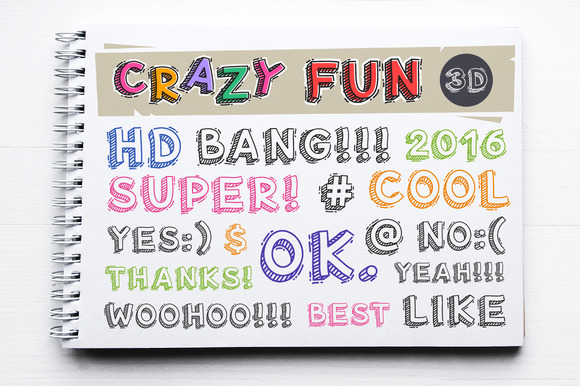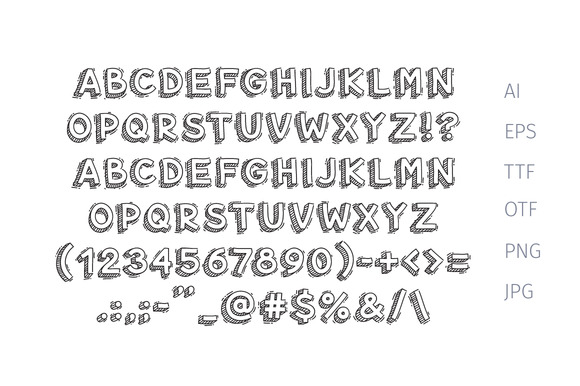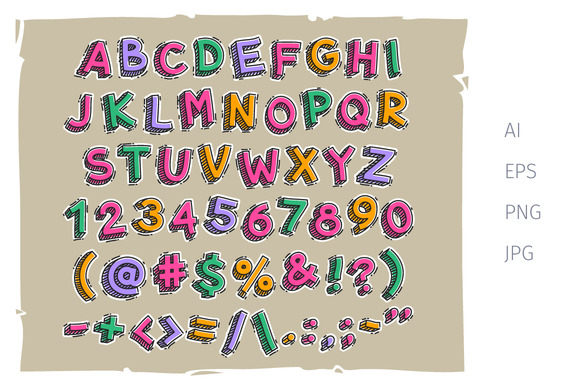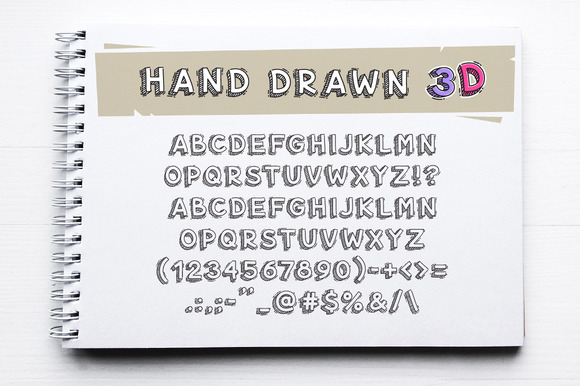
Introducing the Hand Drawn 3D Font: Elevate Your Designs with a Personal Touch
Are you tired of using the same old fonts for your designs? Look no further! The Hand Drawn 3D Font is here to revolutionize your creative projects. This stunning, hand-drawn 3D typeface is perfect for adding a personal touch to your headings, logos, posters, and more. In this article, we’ll dive into the features and benefits of this incredible font, and explore how it can take your designs to the next level.
What is the Hand Drawn 3D Font?
The Hand Drawn 3D Font is a unique and versatile typeface that can be used for a wide range of design applications. As the name suggests, this font is hand-drawn, giving it a distinctive and authentic feel that’s hard to replicate with digital fonts. The 3D effect adds depth and dimension, making it perfect for creating eye-catching headings, logos, and posters.
It’s worth noting that this font does not include lowercase symbols, so be sure to plan your design accordingly.
So, what makes the Hand Drawn 3D Font so special? Here are just a few key features and benefits:
- Unique and Authentic Design: The hand-drawn design gives this font a distinctive and authentic feel that’s perfect for adding a personal touch to your designs.
- Versatile: This font can be used for a wide range of design applications, from headings and logos to posters and more.
How to Use the Hand Drawn 3D Font
So, how can you use the Hand Drawn 3D Font in your designs? Here are a few ideas to get you started:
- Headings and Titles: Use the font to create eye-catching headings and titles for your blog posts, articles, and more.
- Logos and Branding: The 3D effect makes this font perfect for creating unique and memorable logos for your business or brand.
- Posters and Flyers: Add some visual interest to your posters and flyers with this stunning hand-drawn font.
- Social Media Graphics: Use the font to create engaging social media graphics that will help your posts stand out.
Here are a few tips and tricks to help you get the most out of the Hand Drawn 3D Font:
- Experiment with Colors: The 3D effect really comes alive when you experiment with different colors and shading techniques.
- Play with Texture: Add some texture to your design to give it an extra layer of depth and interest.
- Mix and Match: Don’t be afraid to mix and match the font with other design elements to create a unique look.
In conclusion, the Hand Drawn 3D Font is a unique and versatile typeface that’s perfect for adding a personal touch to your designs. With its authentic hand-drawn design, 3D effect, and comprehensive set of files, this font is a must-have for designers and crafters. Whether you’re creating headings, logos, posters, or more, this font is sure to elevate your designs to the next level.